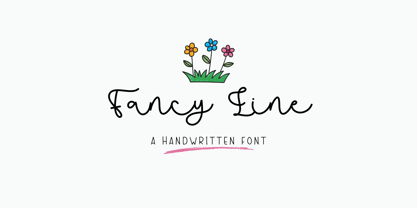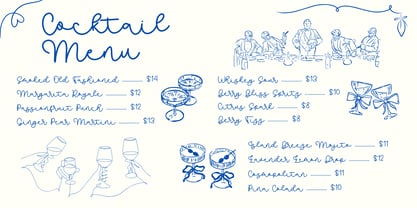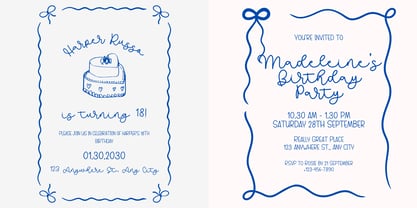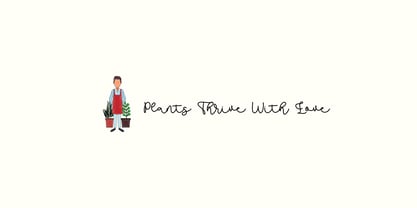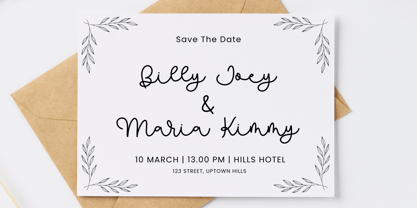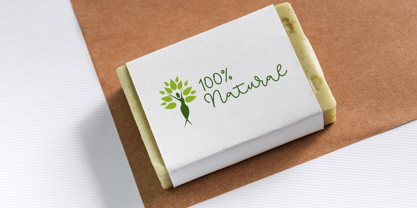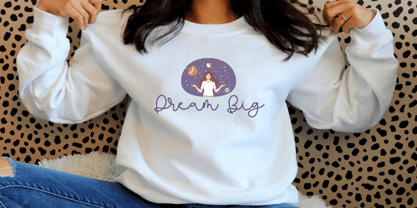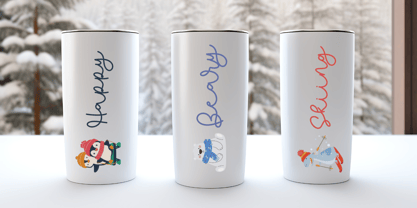
Fancy Line
by Beary
The Fancy Line Font Family was designed by Dian Haniffan Hadi and published by Beary. Fancy Line contains 1 styles.
Fancy Line Font is a charming handwritten monoline typeface that radiates elegance and a natural appeal.
Each letter is thoughtfully crafted to create stunning text that feels both personal and captivating.
Let Fancy Line Font add a touch of beauty and personality to your projects, bringing them to life with its graceful and artistic style!